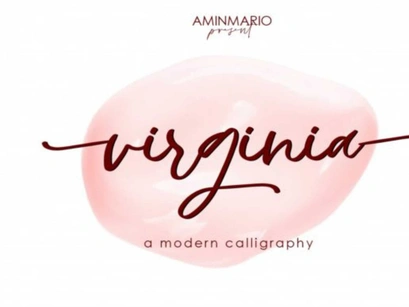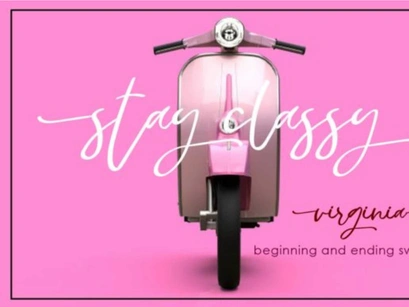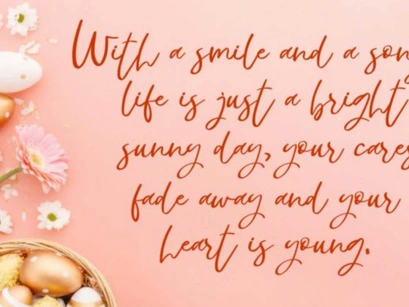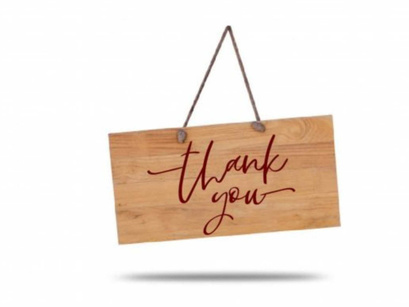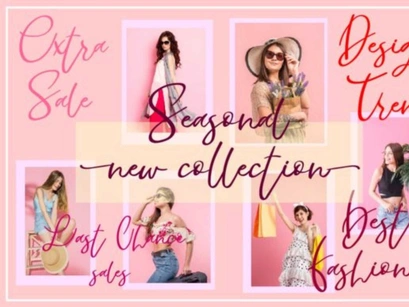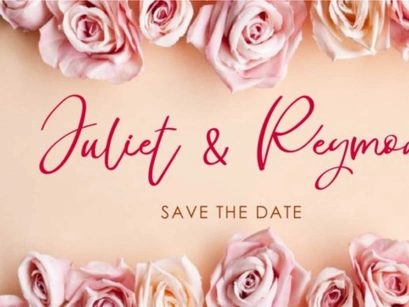
Virginia is a classy and modern handwritten script, full of personality and curves. This font was designed using quick strokes to create a natural handwritten style.
This font is suitable for logos, watermarks on photography, signatures, quotes, wedding designs, album covers, business cards, clothing, magazines, posters, and more!